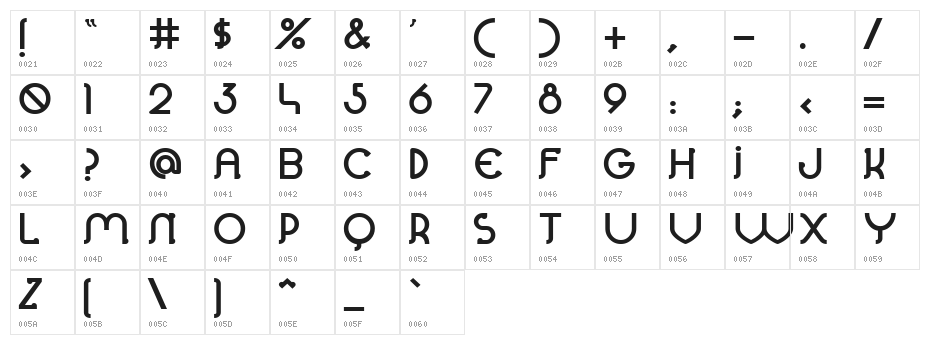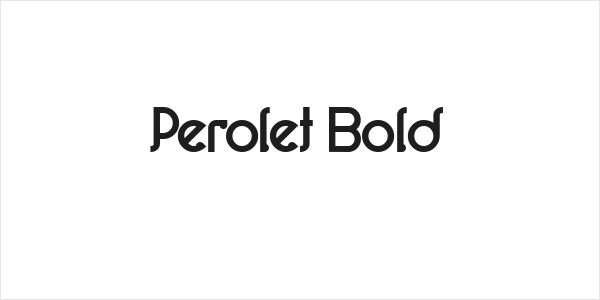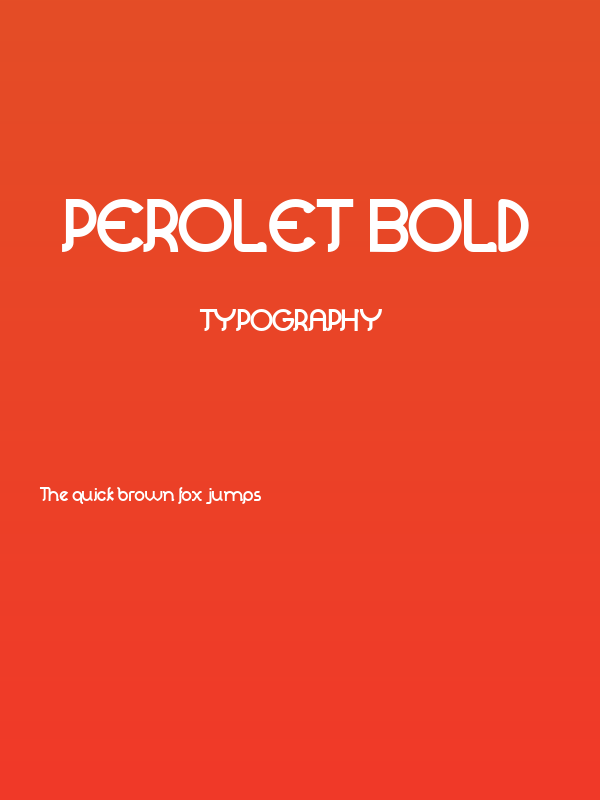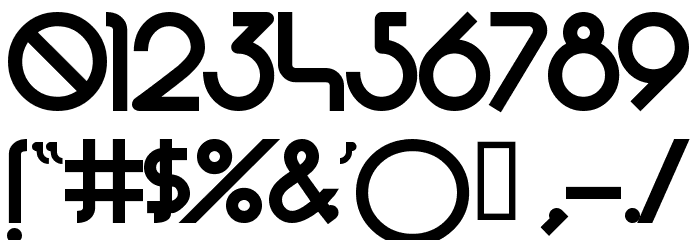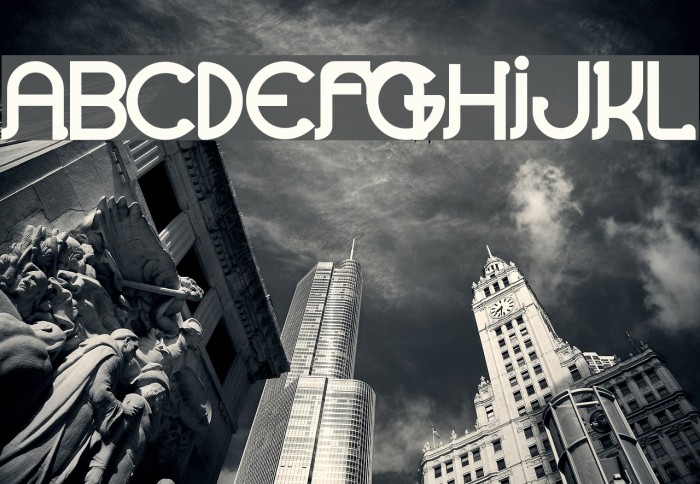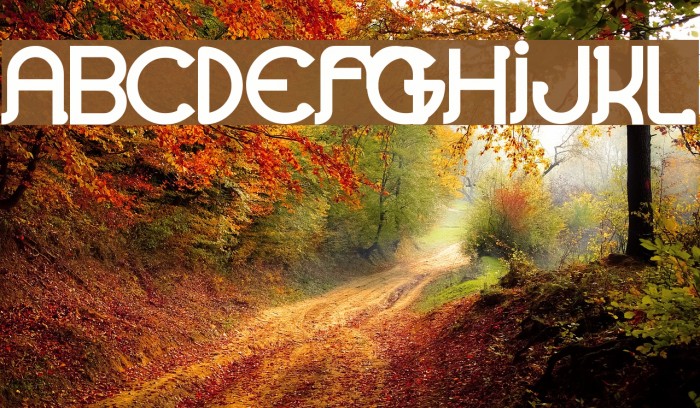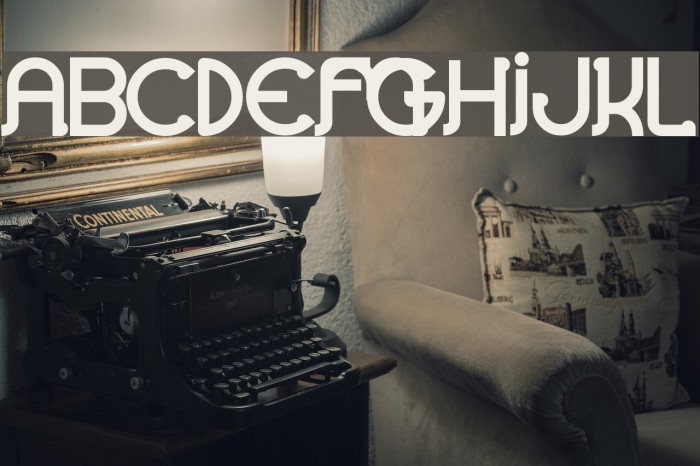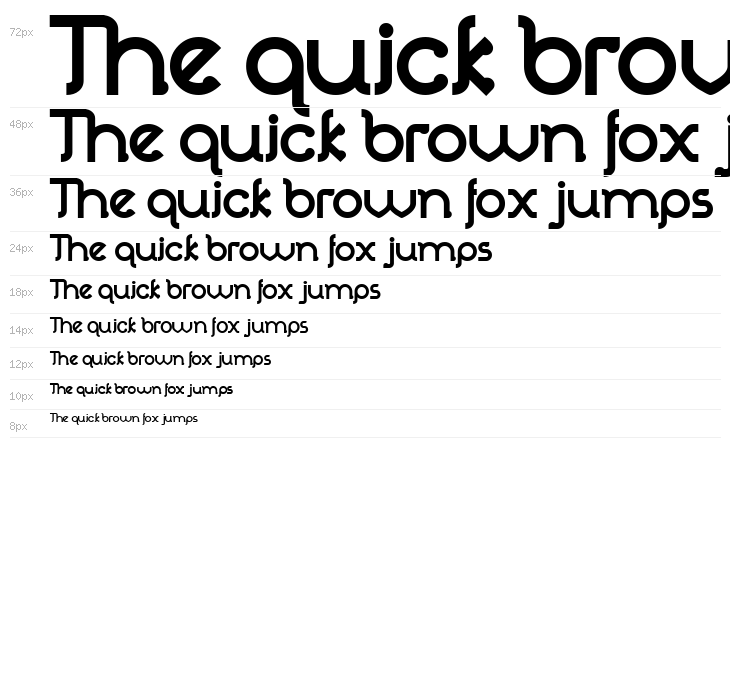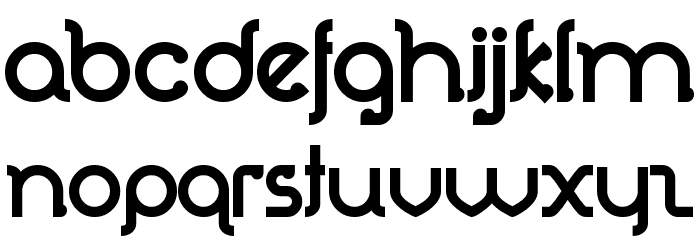
Perolet Bold Font
Perolet Bold Description
This font features a bold and modern design with a unique geometric style. The characters are constructed with a combination of straight lines and smooth curves, creating a futuristic and sleek appearance. The uppercase letters are particularly striking, with some characters incorporating unexpected angles and cuts that add a distinctive flair. The lowercase letters maintain a consistent style, ensuring readability while still offering a creative twist. The numerals are bold and clear, making them suitable for various applications. Special characters are included, maintaining the overall aesthetic of the font. This typeface is perfect for projects that require a modern and eye-catching look.